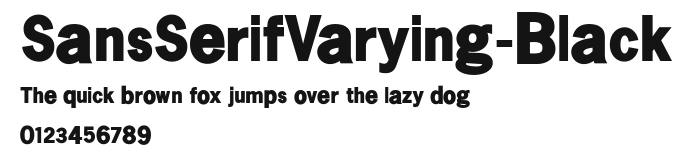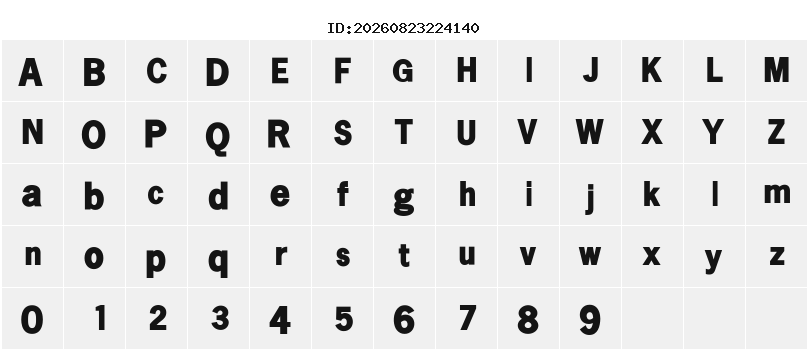
SansSerifVarying-Black Preview
About SansSerifVarying-Black.ttf
SansSerifVarying-Black.ttf is a modern, elegant sans-serif font designed for ultimate readability and visual harmony. Perfect for branding, headlines, web design, and print materials.